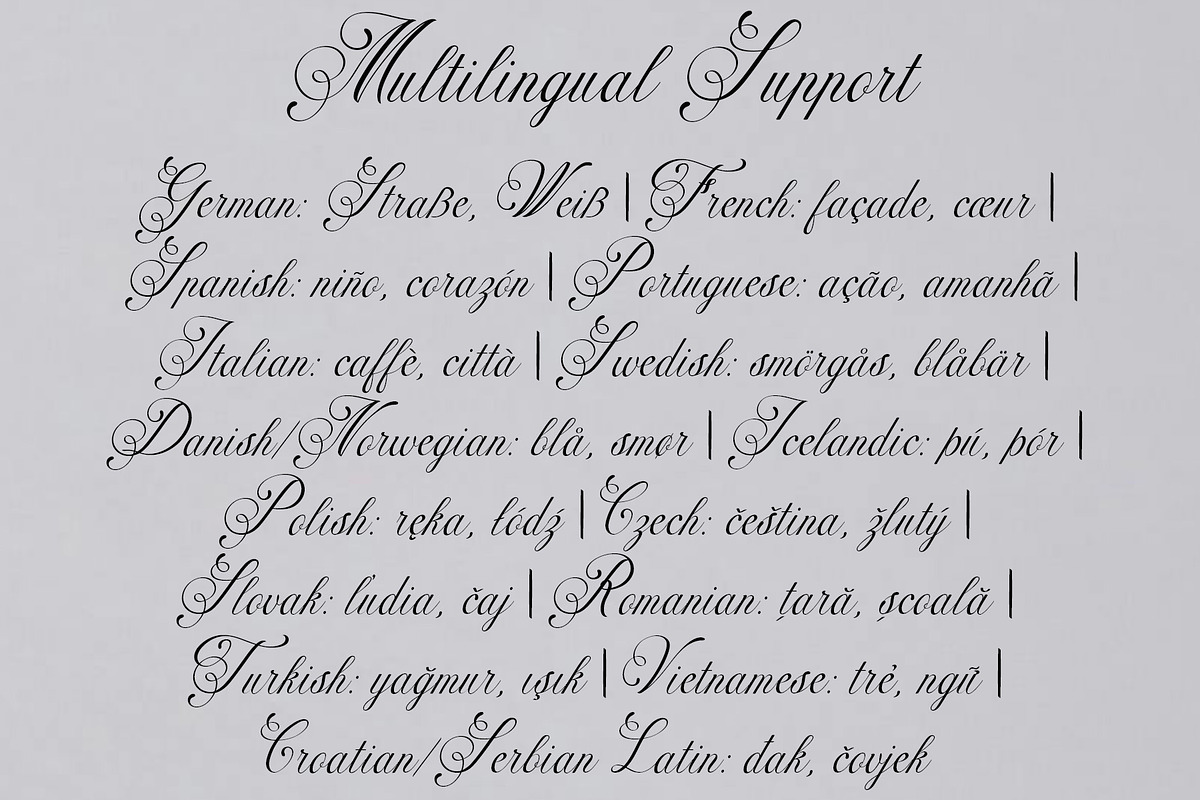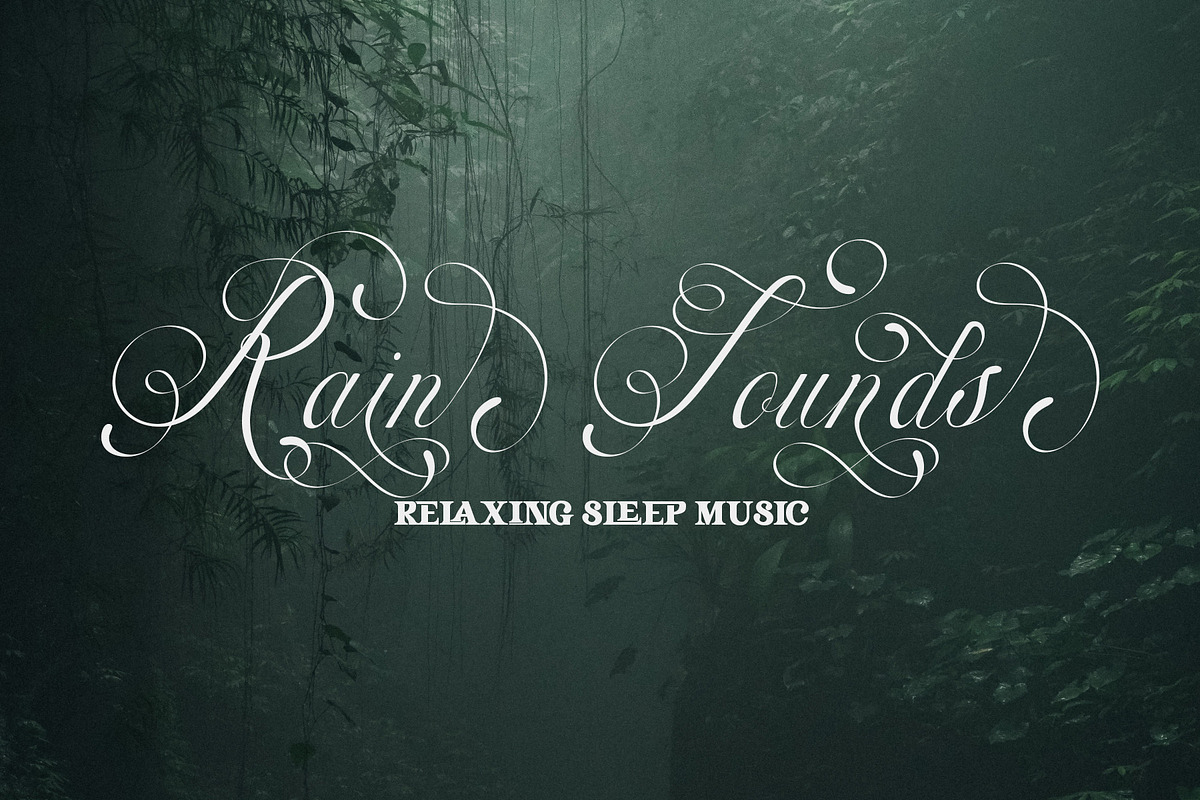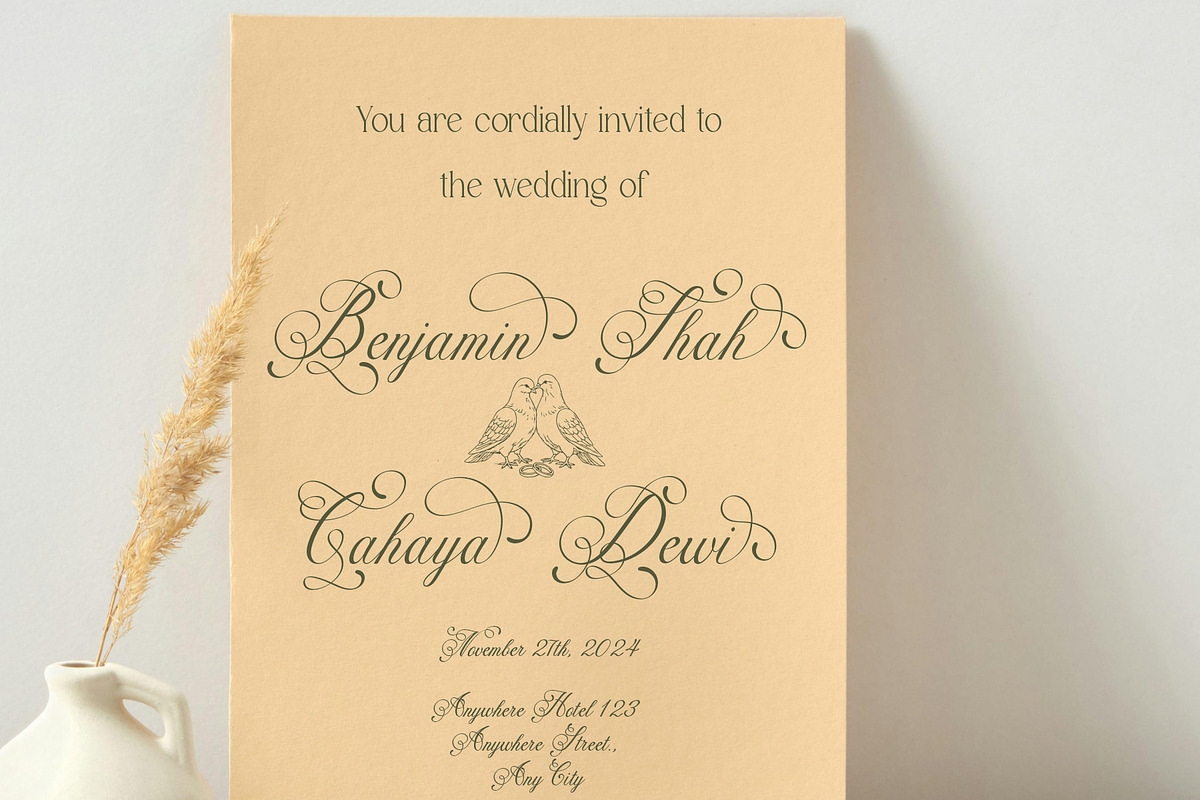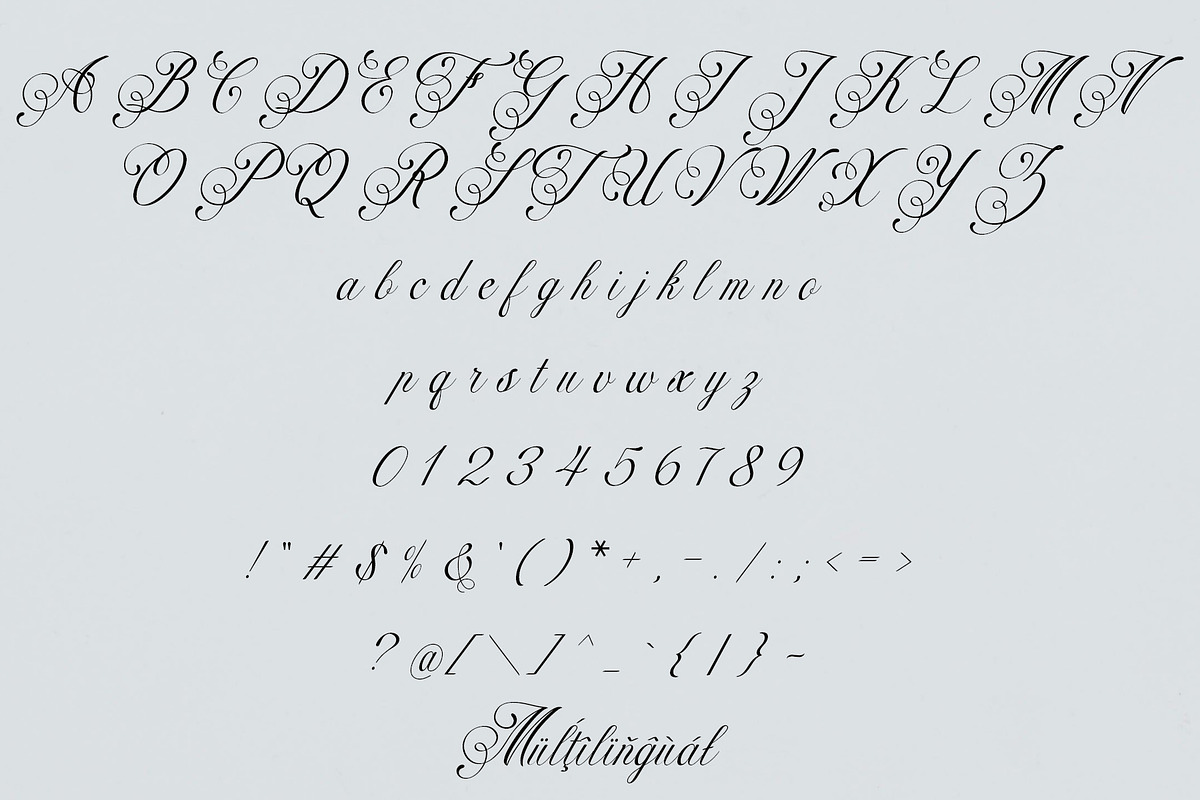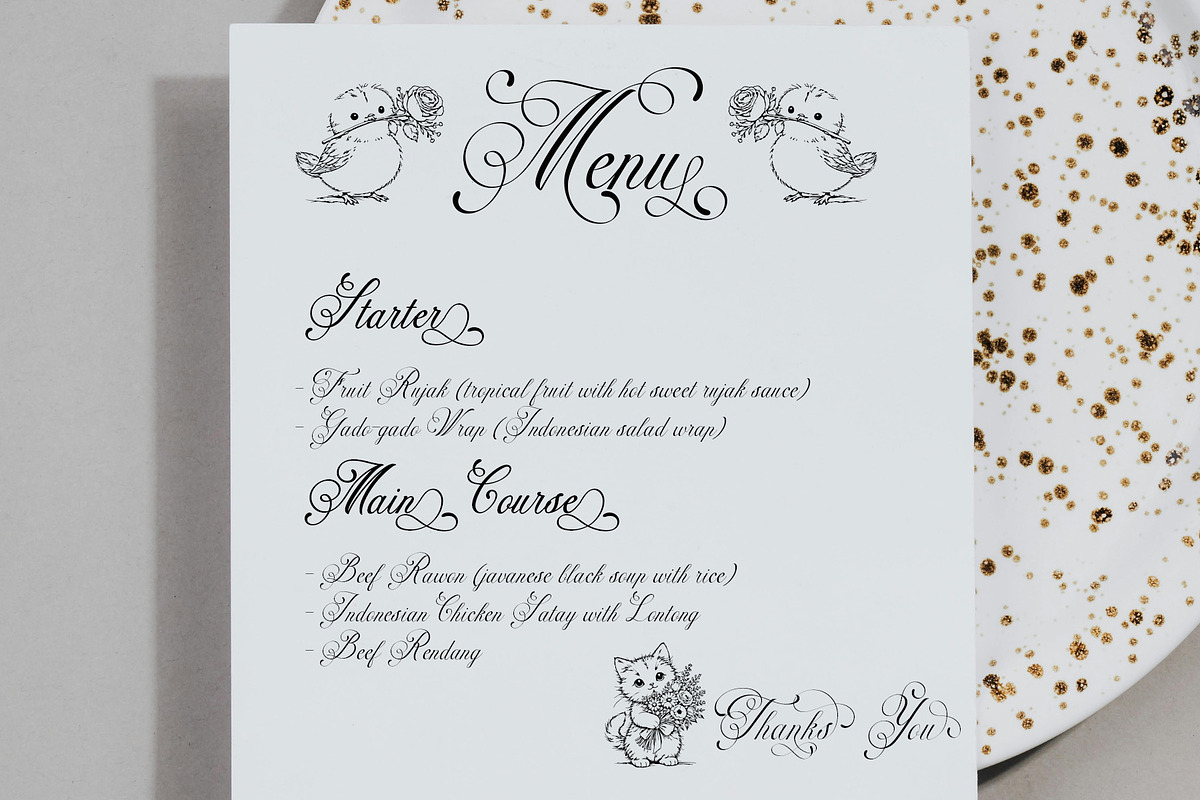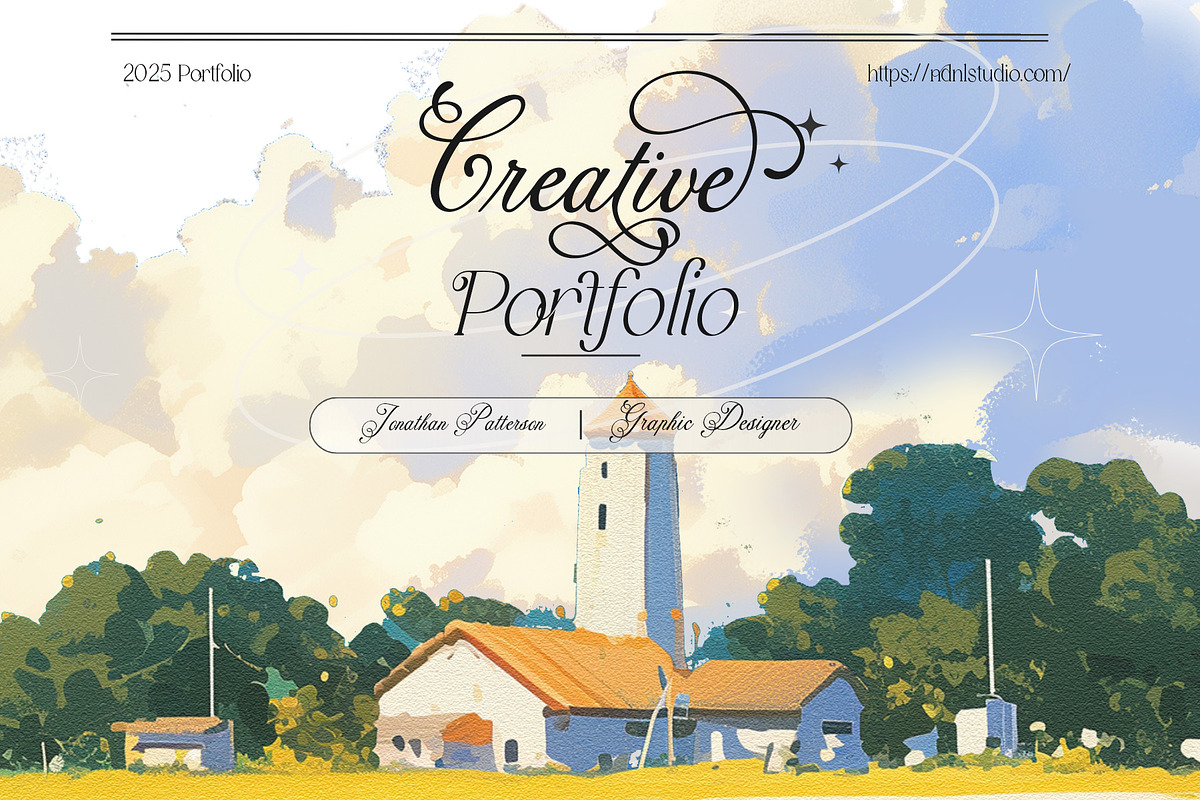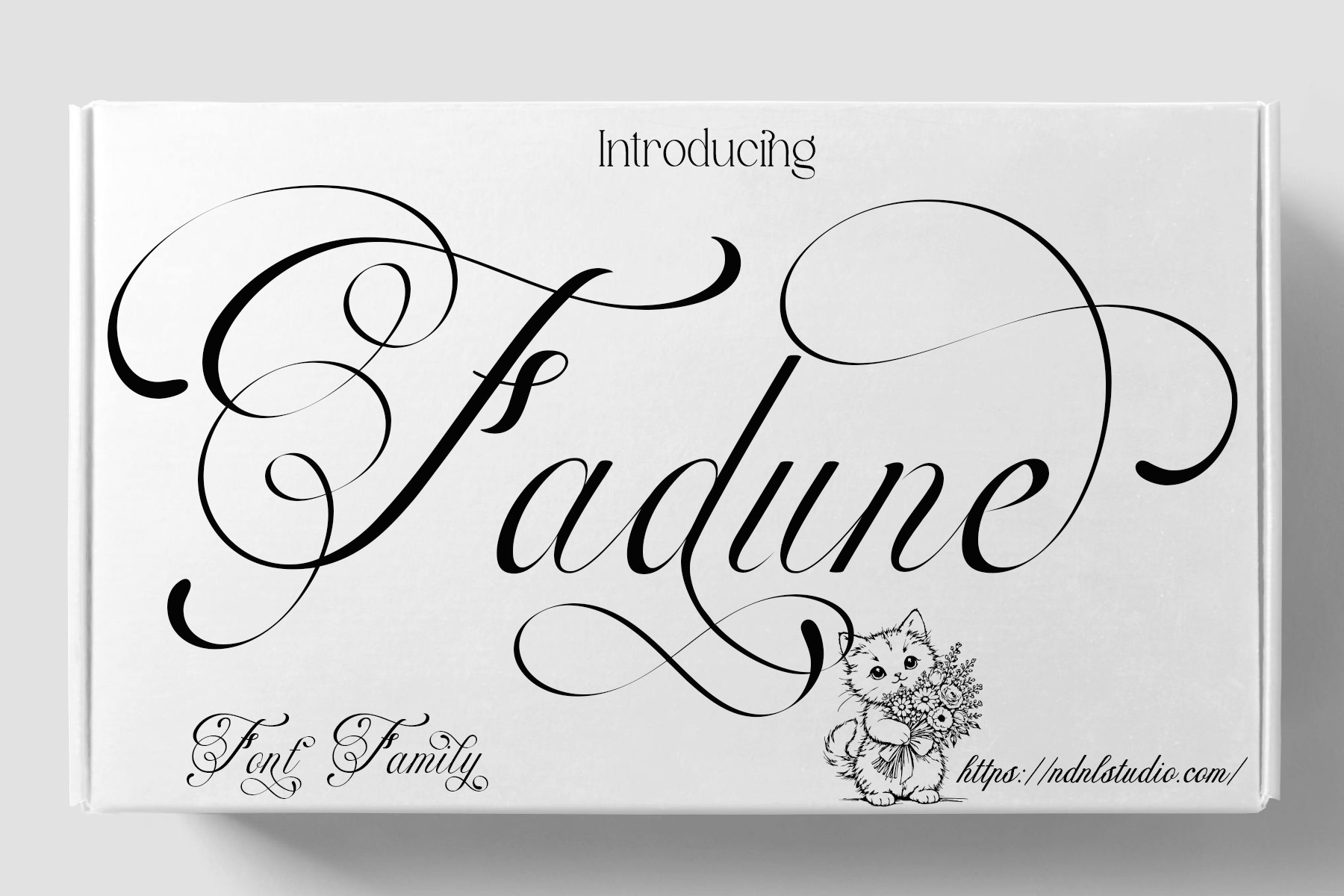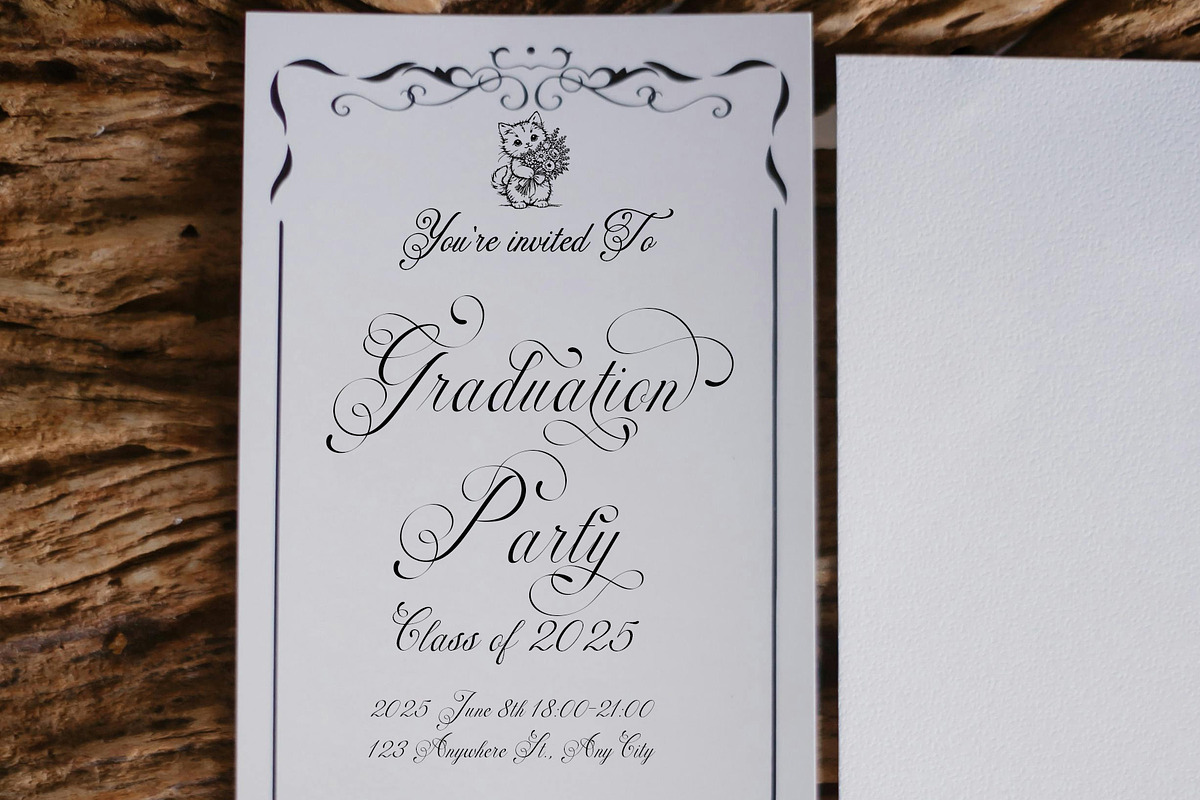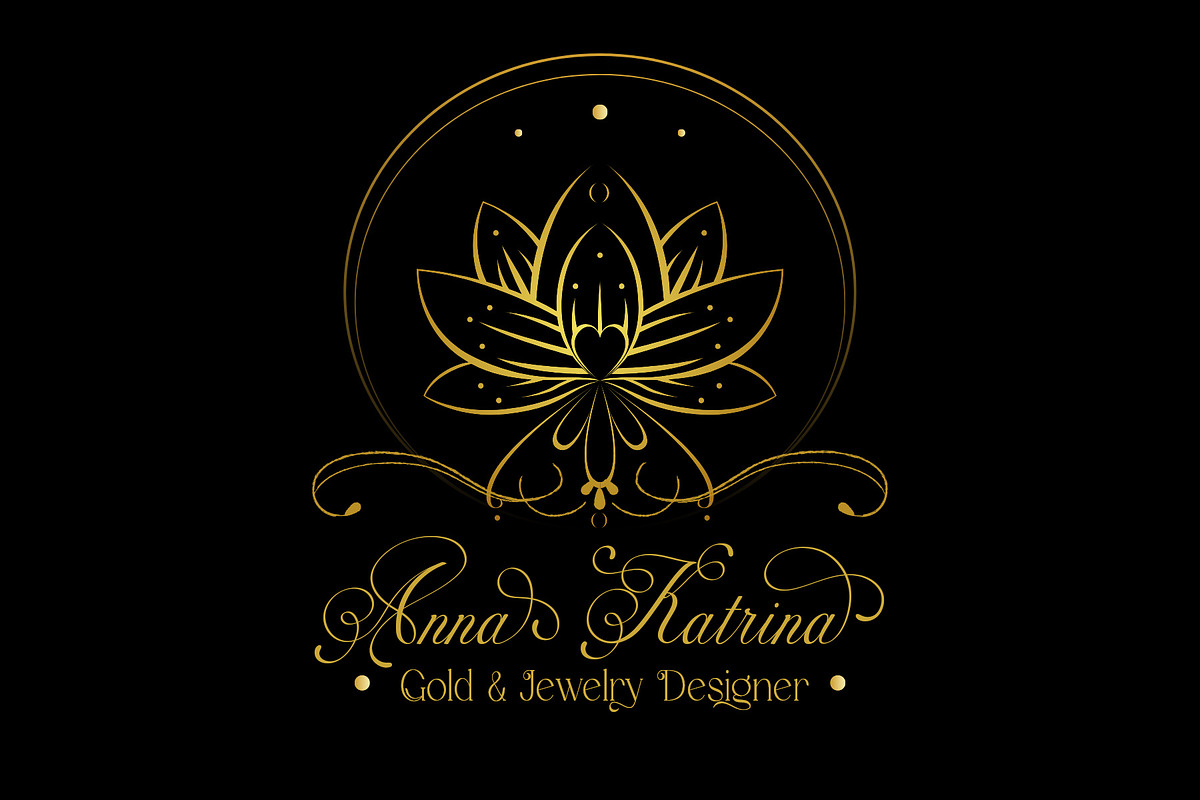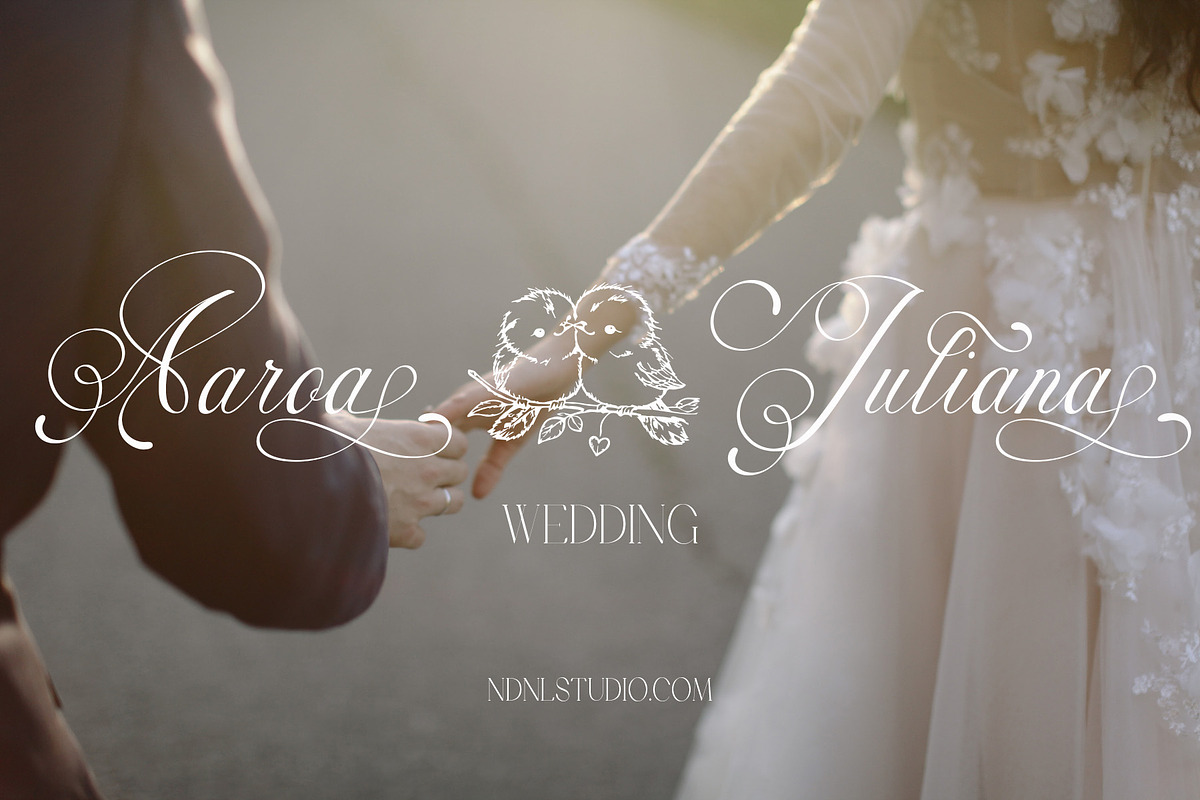
Fadune – Calligraphy Font Family
Fadune is an elegant script typeface inspired by classic and romantic aesthetics. With its flowing strokes and graceful flourishes, the font delivers a refined, sophisticated look while maintaining a soft and expressive character.
Fadune is ideal for high-end and artistic projects such as wedding invitations, branding, logos, packaging, posters, fashion headlines, beauty designs, and decorative layouts with a vintage or romantic style. This typeface brings timeless charm, delicacy, and elegance to every design.
\- Character set A-Z
\- Uppercase & Lowercase
\- Numerals & Punctuation
\- Accented Characters (West Europe)